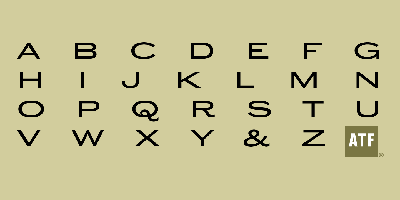
Viktorie Font excels across diverse design applications including luxury branding, wedding invitations, high-end editorial design, premium product packaging, classical music marketing, fine art publications, elegant restaurant menus, and sophisticated corporate communications. Its refined character makes it particularly effective for projects requiring timeless elegance while maintaining contemporary relevance, ensuring your designs convey prestige and cultural sophistication across both digital presentations and premium print materials.
What makes Viktorie Font truly exciting is its masterful interpretation of classical typography traditions enhanced with contemporary design precision that creates compelling luxury communications. The font features meticulously crafted letterforms that demonstrate exceptional grace and readability at all sizes, from large display applications to detailed body text. Its distinctive character construction incorporates subtle classical proportions and refined details that enhance visual appeal while providing distinctive personality that elevates premium brand communications. The font's optimized metrics and elegant character relationships ensure superior performance across various luxury applications and high-end print specifications, making it reliable for prestigious projects.
Viktorie Font presents a comprehensive type family engineered to meet demanding luxury design requirements. The family typically includes light, regular, medium, bold, and black weights, complemented by matching italic styles that provide complete typographic flexibility for sophisticated brand hierarchies. Advanced versions often feature extended character sets with international language support, classical ornaments, and specialized glyphs essential for global luxury communications and premium cultural applications.
The Viktorie Font Free Download represents exceptional value for designers working on upscale and culturally refined projects across multiple industries. Whether developing luxury brand identity, creating premium wedding stationery, designing high-end hospitality materials, or producing classical arts communications, this font delivers consistent excellence and memorable sophistication. Its elegant characteristics make it particularly effective for industries including luxury goods, fine dining, cultural institutions, and premium services seeking to communicate refinement and established quality.
For optimal results, Viktorie Font pairs beautifully with classical design elements and sophisticated color palettes that complement its refined character. Its distinguished presence dominates headline applications while maintaining exceptional legibility in formal correspondence contexts. The font's classical sophistication and timeless appeal make it an invaluable resource for creating luxury communications that resonate with discerning audiences appreciating quality and cultural heritage.